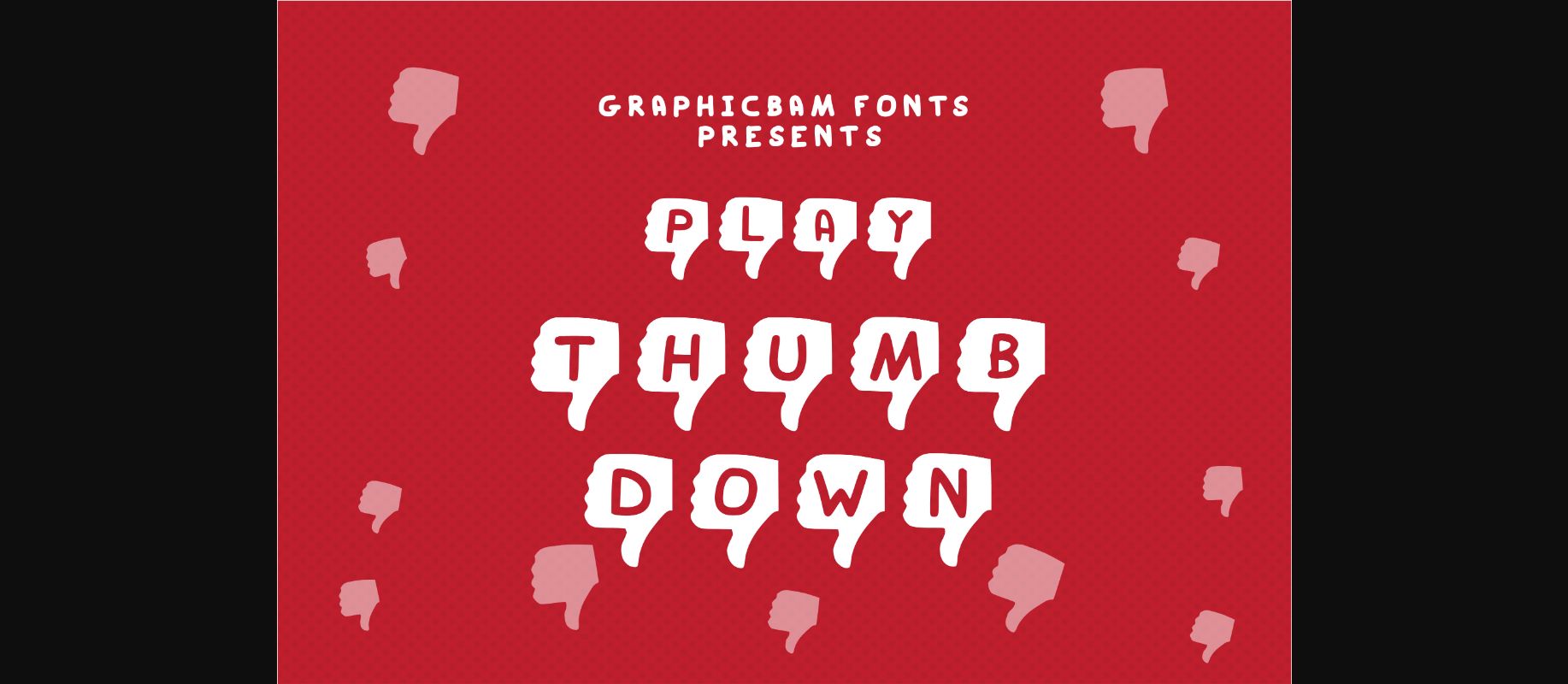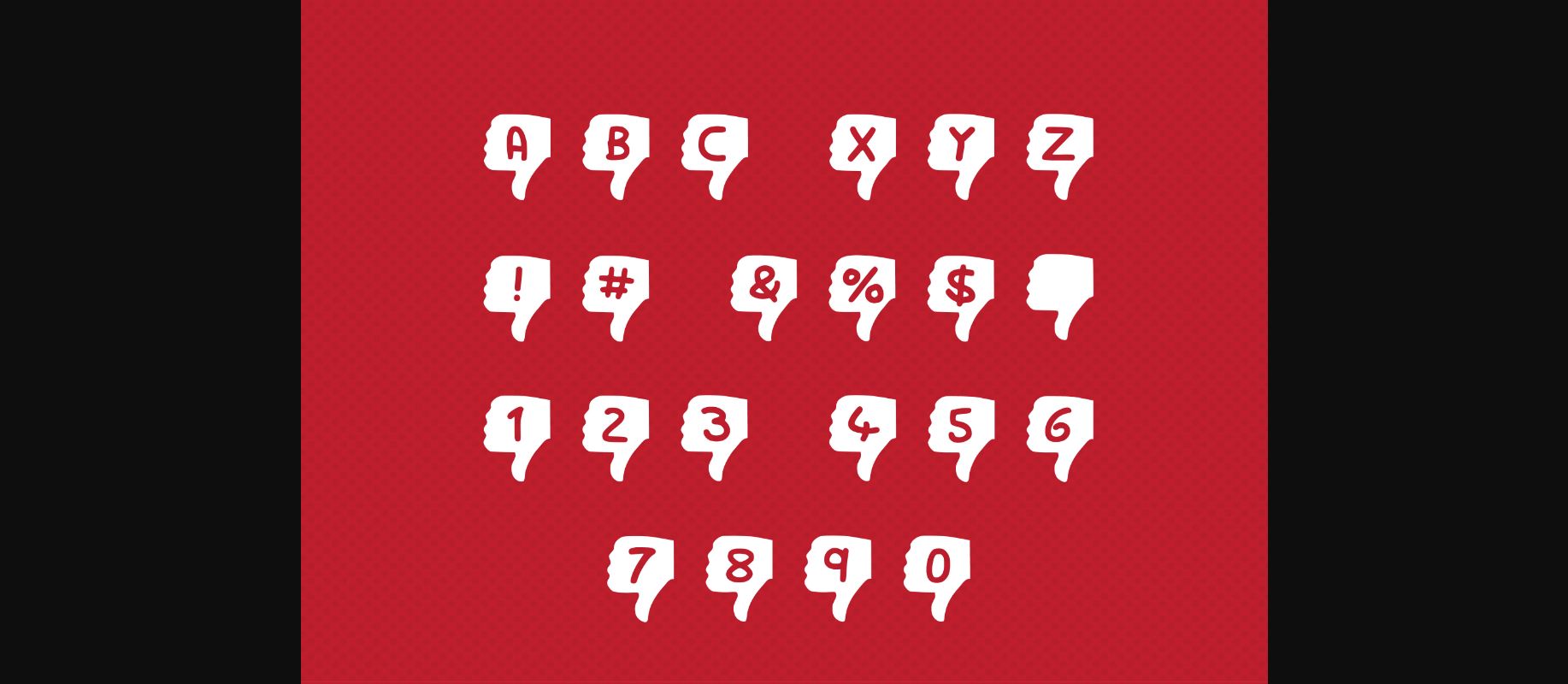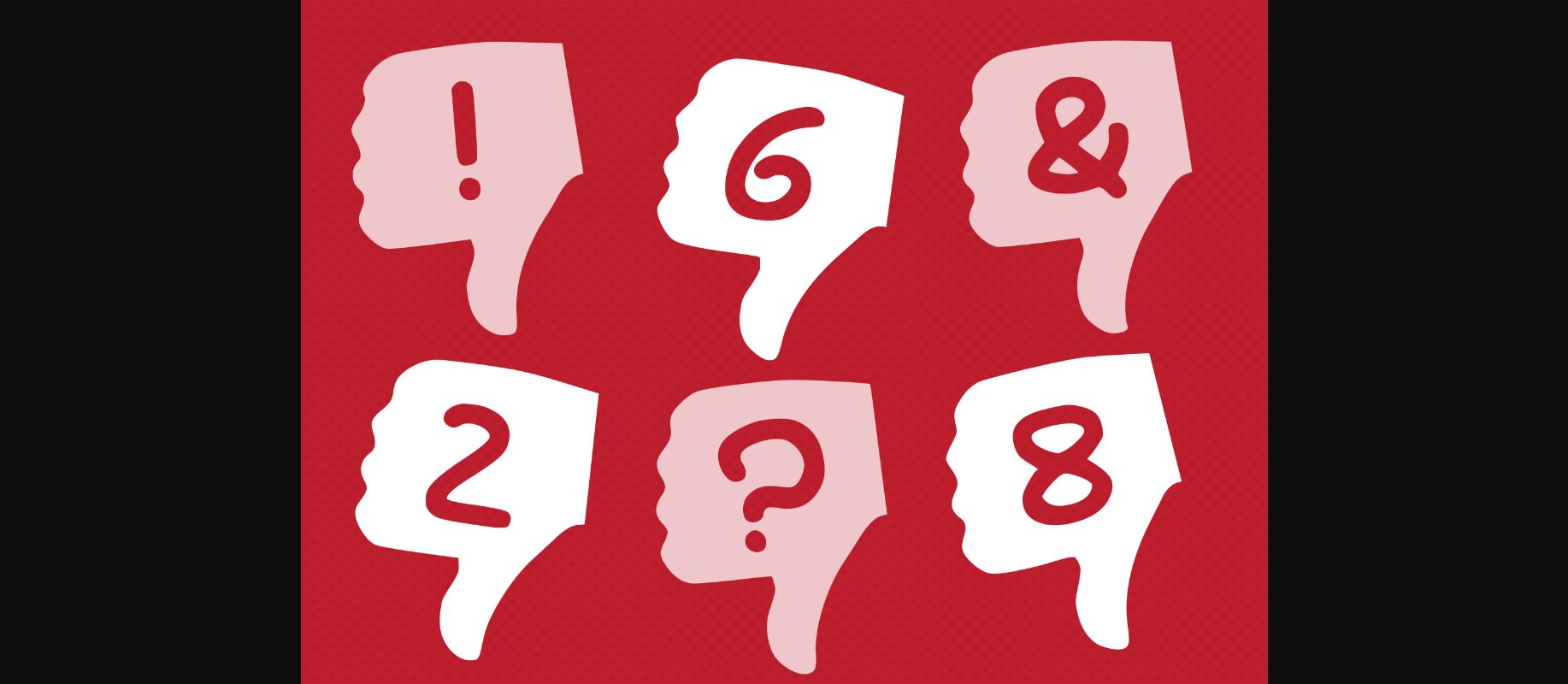
Play Thumb Down Font
About Play Thumb Down Font
Play Thumb Down is the perfect decorative font to use when you want expressive typography! It works great for titles, headlines, covers, banners, and other bold creative ideas.